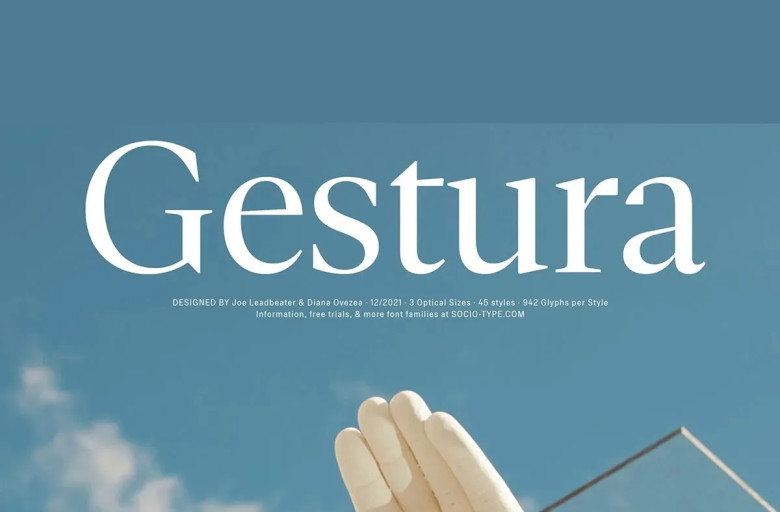
Gestura Font Family
Gestura is a serif butchery font designed with contemporary needs in mind, blending the elegance of serifs with their modern appeal for maximum legibility and personality. Inspired by Granjon’s original design and Plantin,
Gestura strikes a balance between legibility and personality while offering legible results. The counter proportions resemble Granjon while Plantin-esque minimalist details provide the final touches.
Gestura Serif Font Family